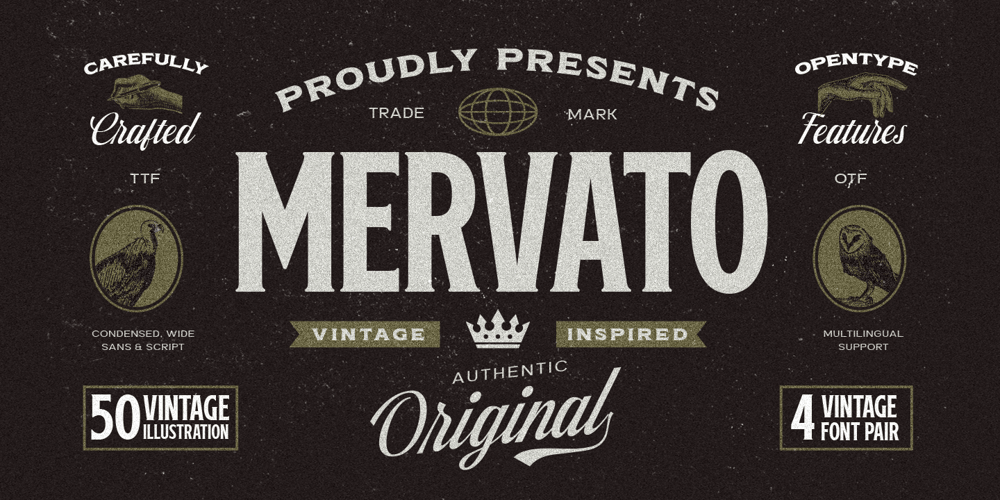
Mervato Font Family was designed by Ahmad Ramzi Fahruddin and published by Arterfak Project. Mervato contains 5 styles and family package options. Introducing Melvins – Font Set. The font combination which inspired by the vintage design. Includes 4 fonts with different styles that have unique looks, and are perfect pairs when combined.This font set is carefully designed with high attention to give a feel of vintage, old-school, and classic. Melvins consist of Condensed, Light, Expanded, & Script styles that are versatile to be used for many design purposes.Melvins Font Set including with 50+ vintage illustrations that will ease you to make a design in a sec and is also equipped with swash and alternate characters that you can mix and match to get a more vintage look. The perfect choice to be used to create logo, label, badges, logotypes, decals, shirts, posters, flyers, and etc.’Fonts featured : All capitals character set Lowercase (script) Numbers Symbols & punctuation Stylistic Alternates Swashes (script) Multilingual support PUA Encoded (no need for special software to access special characters) Thank you for your support! I hope you enjoy using Melvins Font Set.